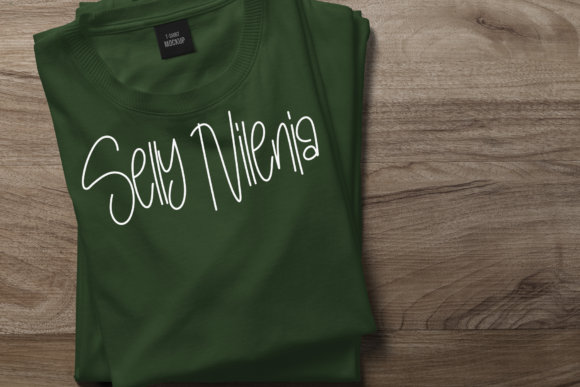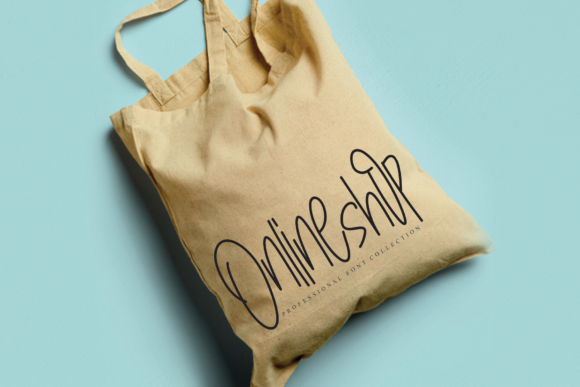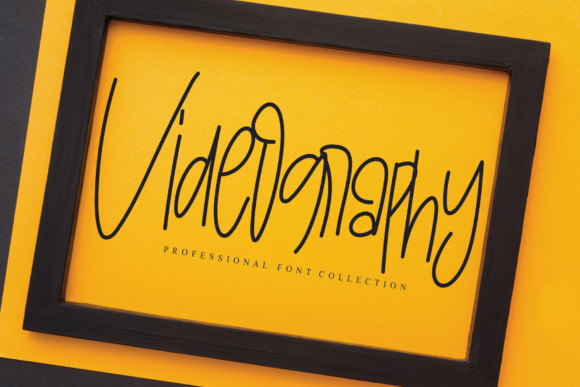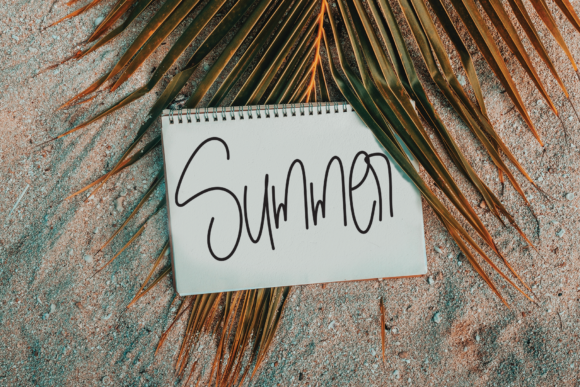
The Perfect Font for Your Next Masterpiece
Have you ever stared at a blank page, waiting for inspiration to strike? The cursor blinks, and your mind goes blank. But then, a spark of creativity hits, and you start to envision the perfect design. The words flow effortlessly, and the image comes to life. This is the moment when the right font can make all the difference. Introducing the Belive Font, a beautifully crafted handwritten font designed to elevate your projects to new heights.
The Belive Font seamlessly blends classic calligraphic influences with a modern twist, making it a versatile choice for designers. Its elegant and refined style adds a touch of sophistication to any project, from wedding invitations to brand logos. Whether you’re a seasoned pro or a budding designer, the Belive Font is a valuable addition to your toolkit, allowing you to bring your creative vision to life with precision and flair.
Belive Font Key Features
- Font Size: Supports a wide range of font sizes, from 8pt to 72pt
- Resolution: Supports high-resolution displays, including Retina and 4K
- Unique Characteristic: Belive Font features a unique, hand-drawn style with subtle texture and nuance
- Language Support: Supports a wide range of languages, including Latin, Cyrillic, Greek, and more
- Font Style: Includes 4 font styles: Regular, Italic, Bold, and Bold Italic
- Font Weight: Supports 8 font weights, from Thin to Extra Bold
Belive Font Review
I recently had the chance to work with the Belive font, and I must say it’s a unique and intriguing choice. Here are my thoughts on what works well and what doesn’t.
- Distinctive aesthetic: The Belive font has a distinctive, hand-drawn feel that can add a touch of personality to your designs.
- Legibility: Despite its unique appearance, the font is surprisingly legible, making it a great choice for body text.
- Customizability: The font offers a range of styles and weights, allowing you to tailor it to your design needs.
- Limited usage: The Belive font may not be the best choice for formal or professional applications, as its hand-drawn feel may come across as unpolished.
- Overuse: The font’s unique aesthetic can quickly become overwhelming if overused, so be sure to use it sparingly.
The Belive font is a great choice for designers looking to add a touch of personality to their work. While it may not be suitable for every project, it’s definitely worth considering for those looking to break away from more traditional font choices.
Tips for Getting the Most Out of Believe Font
Use Believe Font for headings and titles to add a touch of elegance and sophistication to your designs.
Experiment with different font sizes and colors to create a visually appealing contrast.
Pair Believe Font with other elegant fonts to create a cohesive and professional look.
Believe Font is ideal for:
Any design project that requires a touch of elegance and sophistication
Alternatives to “Belive Font” for Designers
The Great Vibes Font is a modern, elegant script font perfect for creating a sophisticated and stylish look. It’s ideal for use in branding, invitations, and advertising materials where a touch of sophistication is required. Great Vibes Font has a more refined and luxurious feel compared to Belive Font, which is more playful and casual.
The Dancing Script Font is a beautiful, flowing script font that’s perfect for creating a whimsical and romantic atmosphere. It’s ideal for use in wedding invitations, greeting cards, and other materials where a touch of elegance and sophistication is required. Dancing Script Font has a more fluid and organic feel compared to Belive Font, which is more structured and geometric.
The Pacifico Font is a beautiful, modern script font that’s perfect for creating a relaxed and beachy vibe. It’s ideal for use in branding, advertising materials, and other materials where a touch of warmth and relaxation is required. Pacifico Font has a more laid-back and casual feel compared to Belive Font, which is more playful and energetic.
Q: What is the recommended font size and line height for the Believe Font?
The recommended font size for the Believe Font is 12-14 points, and the recommended line height is 1.2-1.5 times the font size. This will ensure optimal readability and legibility of the font.
Q: Does the Believe Font support Unicode characters?
Yes, the Believe Font supports a wide range of Unicode characters, including Latin, Greek, Cyrillic, and many other scripts. The font is designed to work seamlessly with Unicode-enabled applications and operating systems.